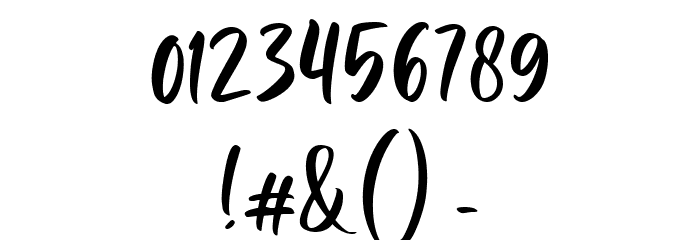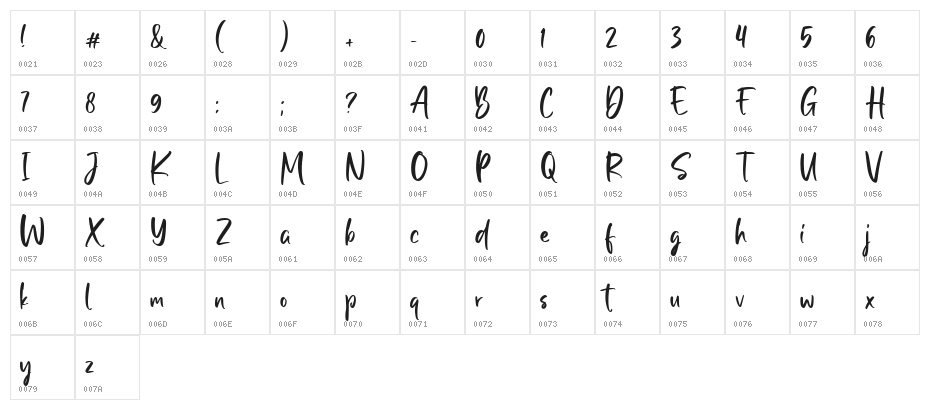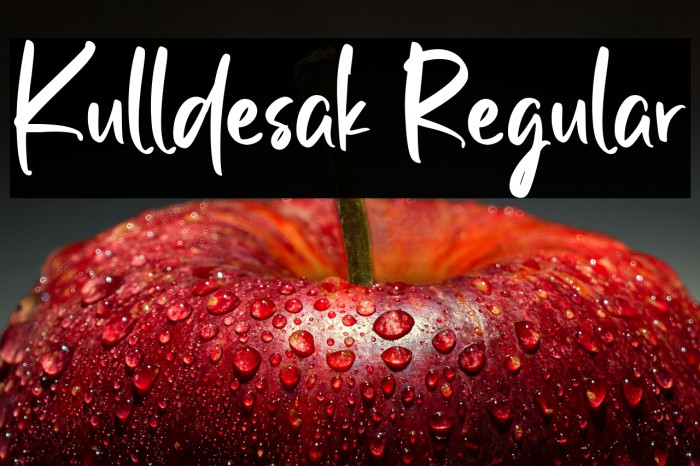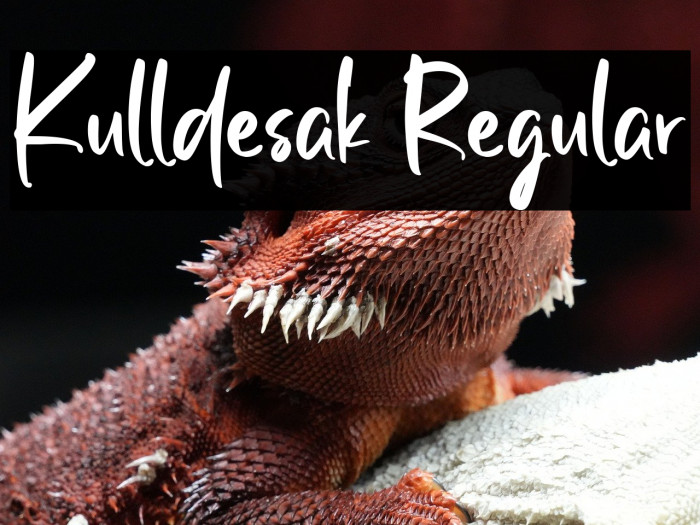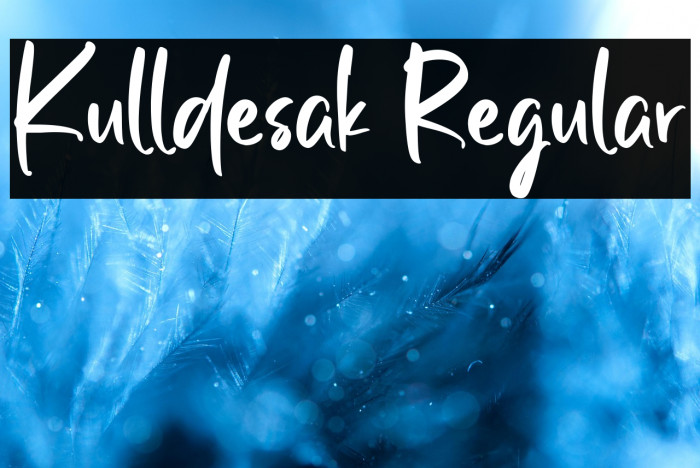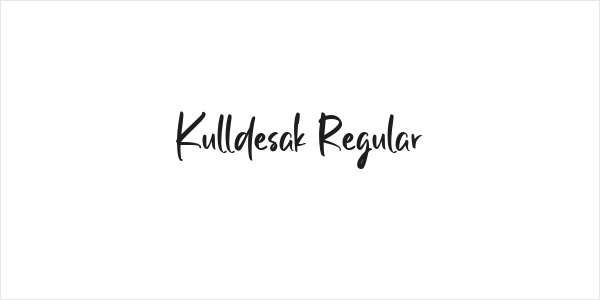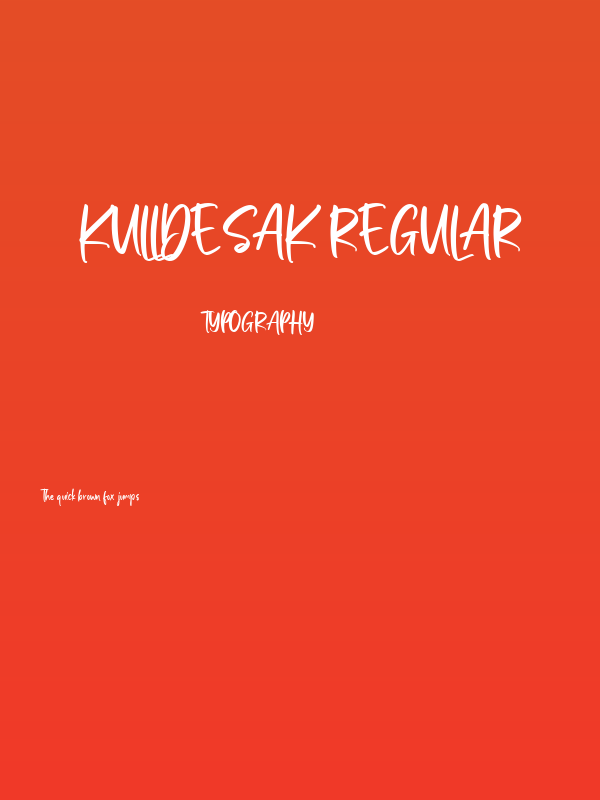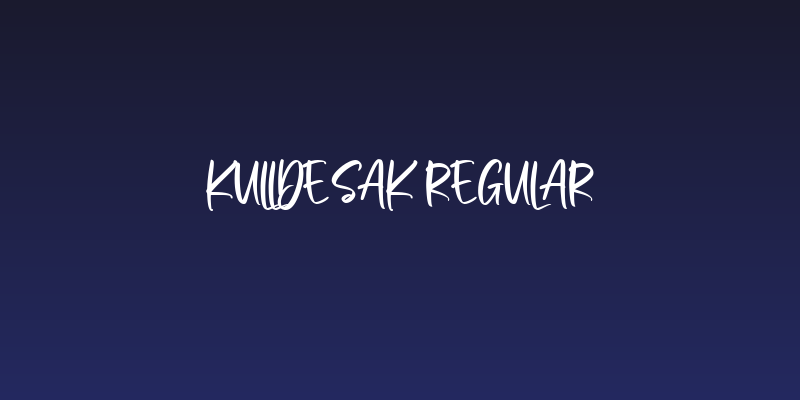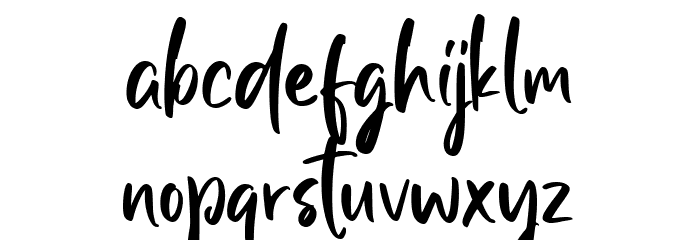
Kulldesak Regular Font
Kulldesak Regular Description
This font exudes a playful and energetic vibe, characterized by its bold, brush-like strokes that give it a handwritten appearance. The uppercase letters are tall and slightly condensed, while the lowercase letters maintain a consistent flow with a slight slant, enhancing its casual and informal style. The numbers and special characters follow the same dynamic and lively design, making them stand out. Its overall aesthetic is both modern and artistic, suitable for projects that require a personal touch.
| Proposed Projects | Ideal for greeting cards, posters, branding materials, and social media graphics where a personal and artistic touch is desired. |